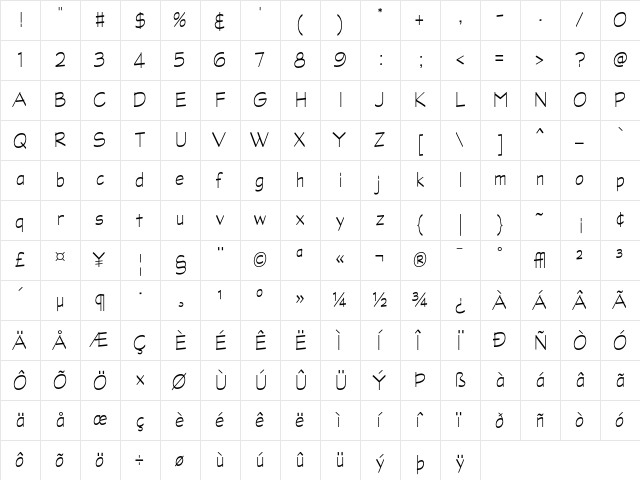
Graphite LightCondensed
Design Context for Graphite Typeface
Graphite offers clean, dependable letterforms without strong stylistic allegiance, making it a practical choice for designers who need flexibility. Its slender proportions lend an understated elegance to any composition. The condensed width makes it efficient for tight spaces without sacrificing legibility.